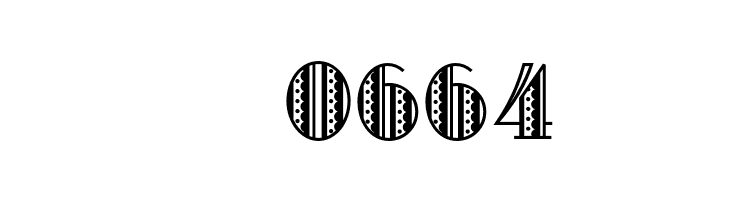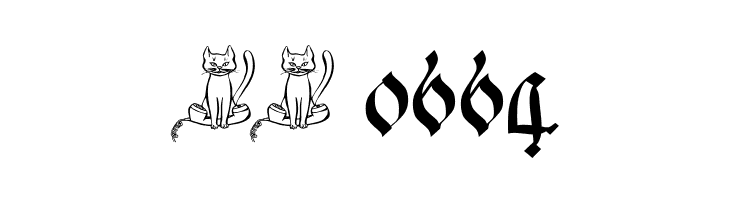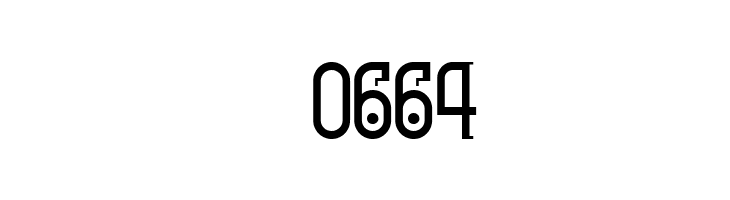
• Metronauts Expanded Italic
A bold, expanded, and italicized futuristic font with geometric shapes.
• Metronauts Gradient Italic
A futuristic, italicized font with a gradient effect and striped pattern.
• Metronauts Gradient Regular
A futuristic, line-based decorative font with a gradient effect.
• Metronauts Italic
A bold, italic, futuristic font with geometric shapes and a modern aesthetic.
• Metronauts Laser Italic
A bold, italicized font with a futuristic and dynamic design.
• Metronauts Laser Regular
A bold, futuristic font with geometric shapes and rounded edges.
• Metronauts Leftalic
A bold, futuristic font with geometric and italicized elements.
• Metronauts Regular
A bold, futuristic font with geometric and modern design elements.
• Metropol 95
• Metropolis NF
A bold, geometric font with decorative circular elements.
• MetroRetroNF
A bold, decorative font with retro patterns and intricate detailing.
• Mexcellent 3D
• Mexican fiesta
A bold, decorative font with geometric influences and a festive flair.
• Mexican fiesta Bold
A bold, decorative font with a three-dimensional effect and festive style.
• MexiKOrnaments
Intricate, decorative symbols inspired by traditional Mexican art.
• Meyne Textur
A bold and intricate Blackletter font with ornate, angular letterforms.
• Meyne Textur
A bold, ornate blackletter font with a medieval aesthetic.
• Mezzotick
• Mia Sister
• Mia's Greetings
A lively, handwritten-style font with dynamic strokes and a casual feel.
• Mich
A playful, casual handwritten font with irregular, organic letterforms.
• Michaelmas
A dynamic and flowing script font with elegant curves and whimsical flourishes.
• MichelangeloFREE
A bold, stencil-style font with geometric shapes and high contrast.